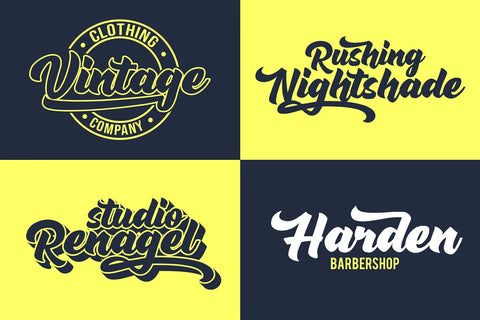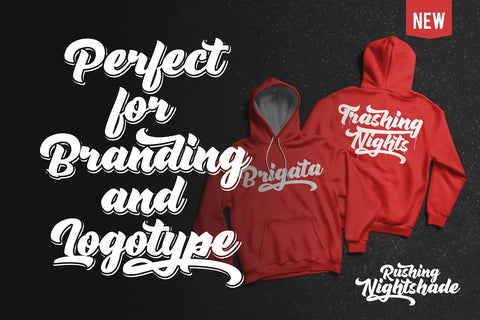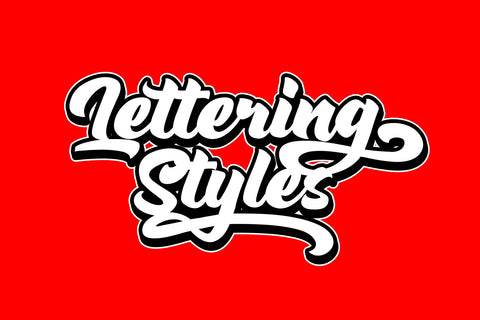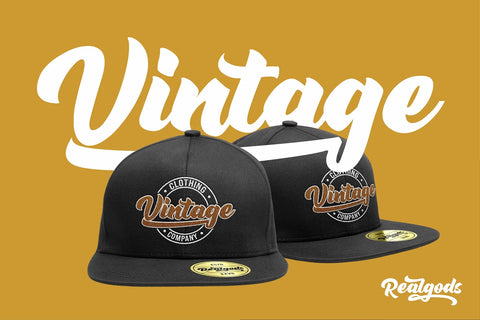
Rushing Nightshade - Bold Script Font
The Rushing Nightshade is a natural bold script, inspired by a vintage aesthetic. Made in combination with hand lettering, it comes with dramatic movement and it’s great for any next creative project that needs a retro vibe or modern touch.
It ideal for logos, handwritten quotes, product packaging, header, poster, merchandise, social media & greeting cards.